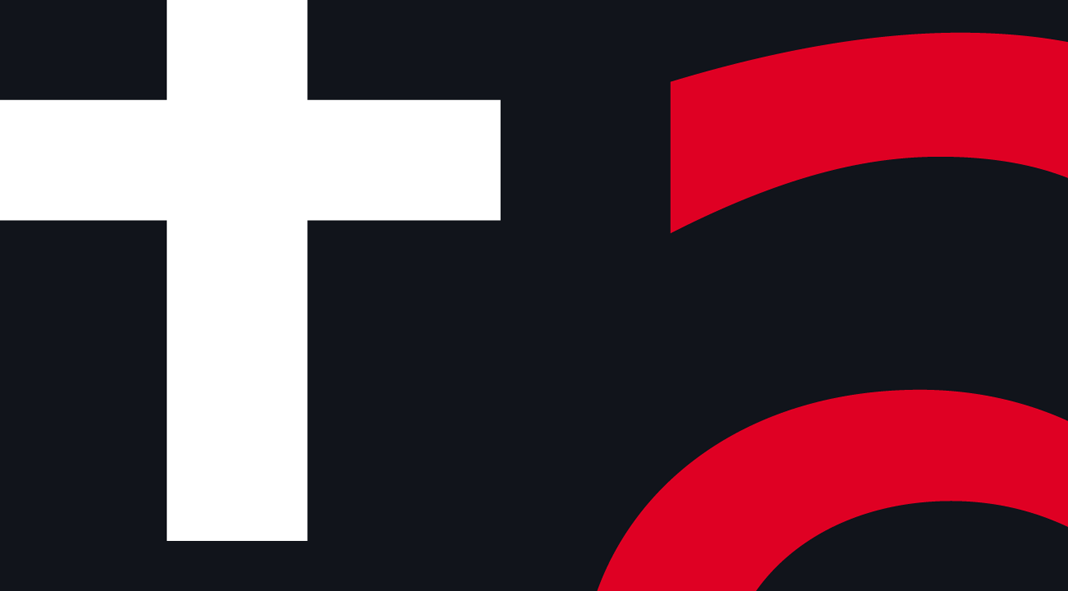
Milliard, a modern grotesk font family by German type designer René Bieder.
Here comes the brand new Milliard font family. This beauty has been designed and published by René Bieder. The sharp and elegant family consists of 22 fonts. Its clean style is inspired by typical grotesk typefaces known from the early twentieth century. Due to Milliard’s clear and modern appearance as well as its great legibility in both large and small text sizes, this elegant type family works pretty good in plenty of applications including print and web. Get further information below or click on the following link.
In addition to its open counters and airy feel, the typeface reveals a humanistic but yet geometric voice, ranging from elegant thin weights to strong heavy weights. Furthermore, the family is equipped with many OpenType features including diverse stylistic sets, old style numbers, arrows, among others. With lots of alternate characters and multi language support, the Milliard font family was made for professional type setting. Its clean style is the result of combining geometric elements like a nearly circular uppercase and lowercase O, open apertures on “a”, “c”, and “e”, with vertically sheared terminals on uppercase “C”, “G”, J, and “S”. Round dots supporting the warm and humanist character. The high x-hight results in great readability in any text size. The complete family is currently available as cheap introductory offer. Just follow the link below.